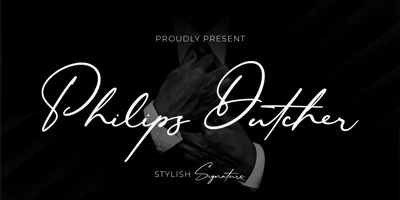
Philips Dutcher Font
Philips Dutcher Font is perfect for Dutch cultural heritage institution branding, Netherlands tourism promotional materials, traditional Dutch craft workshop communications, Amsterdam design studio presentations, Dutch colonial history museum exhibits, authentic Dutch cheese and delicatessen signage, Netherlands maritime heritage documentation, traditional windmill restoration projects, Dutch architectural firm graphics, and distinguished Dutch lifestyle marketing campaigns.
What makes Philips Dutcher Font so exciting is its extraordinary ability to capture the practical wisdom and cultural sophistication of Dutch civilization through systematically refined letterforms that seem crafted by master craftsmen in Amsterdam guildhalls and blessed with the kind of enduring functionality that defines Dutch design philosophy and the systematic approach to problem-solving that has enabled the Netherlands to thrive despite challenging geography and limited natural resources. This font embodies the essence of Dutch ingenuity and cultural achievement, featuring methodically proportioned characters that appear designed according to the same principles that created the intricate canal systems, efficient windmills, and maritime innovations that demonstrate Dutch mastery of engineering challenges through systematic thinking and practical wisdom. The culturally refined letter shapes create an atmosphere of Dutch sophistication and institutional reliability, making every word feel like it carries the authority of centuries of Dutch achievement and the promise of discovering solutions that combine aesthetic beauty with practical functionality in the distinctive Dutch tradition.
The Philips Dutcher Font family includes Light, Regular, Medium, Bold, and Heritage variations, along with Dutch cultural symbols and traditional decorative elements. Each style maintains the font's distinctive Dutch character while offering versatility for different cultural applications, from delicate historical documentation to commanding celebration headlines that honor Dutch contributions to world civilization and cultural achievement.
This distinguished typeface brings authentic Dutch cultural aesthetics to contemporary design projects. The Philips Dutcher Font offers designers an invaluable resource for creating memorable brand identities that communicate Dutch sophistication, cultural authority, and Netherlands authenticity. Whether you're developing Dutch cultural institution branding, designing Netherlands heritage materials, or creating Dutch business communications, this font delivers unmatched Dutch credibility and cultural appeal.
The expertly crafted letterforms in Philips Dutcher Font feature systematic proportions and cultural clarity that mirror the architectural precision of Dutch cities and the methodical approach that has enabled Dutch society to achieve remarkable prosperity while maintaining strong cultural identity and environmental sustainability. Each character has been designed to maintain perfect readability while expressing the practical wisdom and cultural sophistication that define authentic Dutch heritage. The font's distinctive personality makes it ideal for applications requiring genuine Dutch authority and Netherlands cultural credibility.
Dutch cultural and business professionals appreciate how Philips Dutcher Font effortlessly communicates cultural sophistication, Dutch innovation, and Netherlands excellence while appealing to international audiences seeking authentic Dutch experiences that honor both historical achievements and contemporary contributions of Dutch civilization to global culture, trade, and innovation. The comprehensive character set includes Dutch symbols, cultural ornaments, heritage decorations, and extensive international language support, ensuring global compatibility while preserving its distinctive Philips Dutcher identity. This makes it an invaluable resource for Dutch cultural institutions, Netherlands businesses, heritage organizations, and any establishment seeking typography that embodies the timeless Dutch principles of practical innovation, cultural sophistication, and the kind of systematic excellence that has enabled a small nation to achieve outsized influence in global affairs through the patient application of Dutch wisdom that understands true success comes from combining practical problem-solving with aesthetic refinement, creating solutions that serve human needs while respecting environmental limits and cultural values that have guided Dutch society through centuries of challenges and opportunities, ensuring that Dutch culture continues to contribute to world civilization through innovations that demonstrate how systematic thinking, cultural sophistication, and practical wisdom can create prosperity while preserving the natural and cultural heritage that makes the Netherlands a model of sustainable development and cultural achievement.